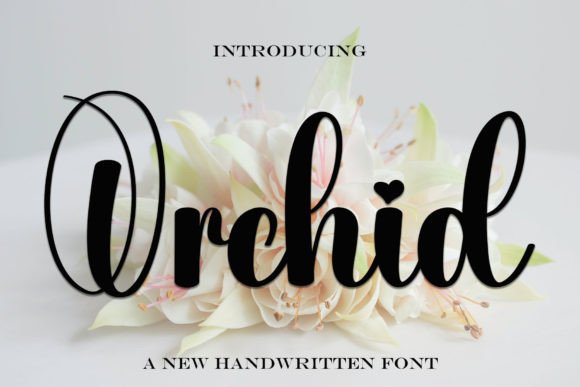
Immerse yourself in the captivating realm of Orchid, a remarkable script font that exudes casual elegance and timeless charm. Its flowing curves and delicate strokes evoke a sense of effortless beauty, making it the perfect choice for those seeking to add a touch of sophistication and artistry to their creative endeavors.
Unleash your imagination and let Orchid guide you through a world of possibilities, from crafting heartfelt wedding invitations to designing stunning stationary art. Its versatility knows no bounds, extending to eye-catching social media posts, captivating logos, and any project where a touch of handwritten elegance is desired.
With Orchid, you hold the key to unlocking a world of creativity and expression. Its enchanting style will transform your words into works of art, capturing the attention of all who behold them. Whether you're a seasoned designer or just starting your creative journey, Orchid is the perfect companion for those who seek to create designs that leave a lasting impression.
So embark on this extraordinary journey with Orchid, and let your creativity flourish like never before. Experience the joy of transforming ordinary words into extraordinary creations, leaving a trail of beauty and inspiration in your wake.